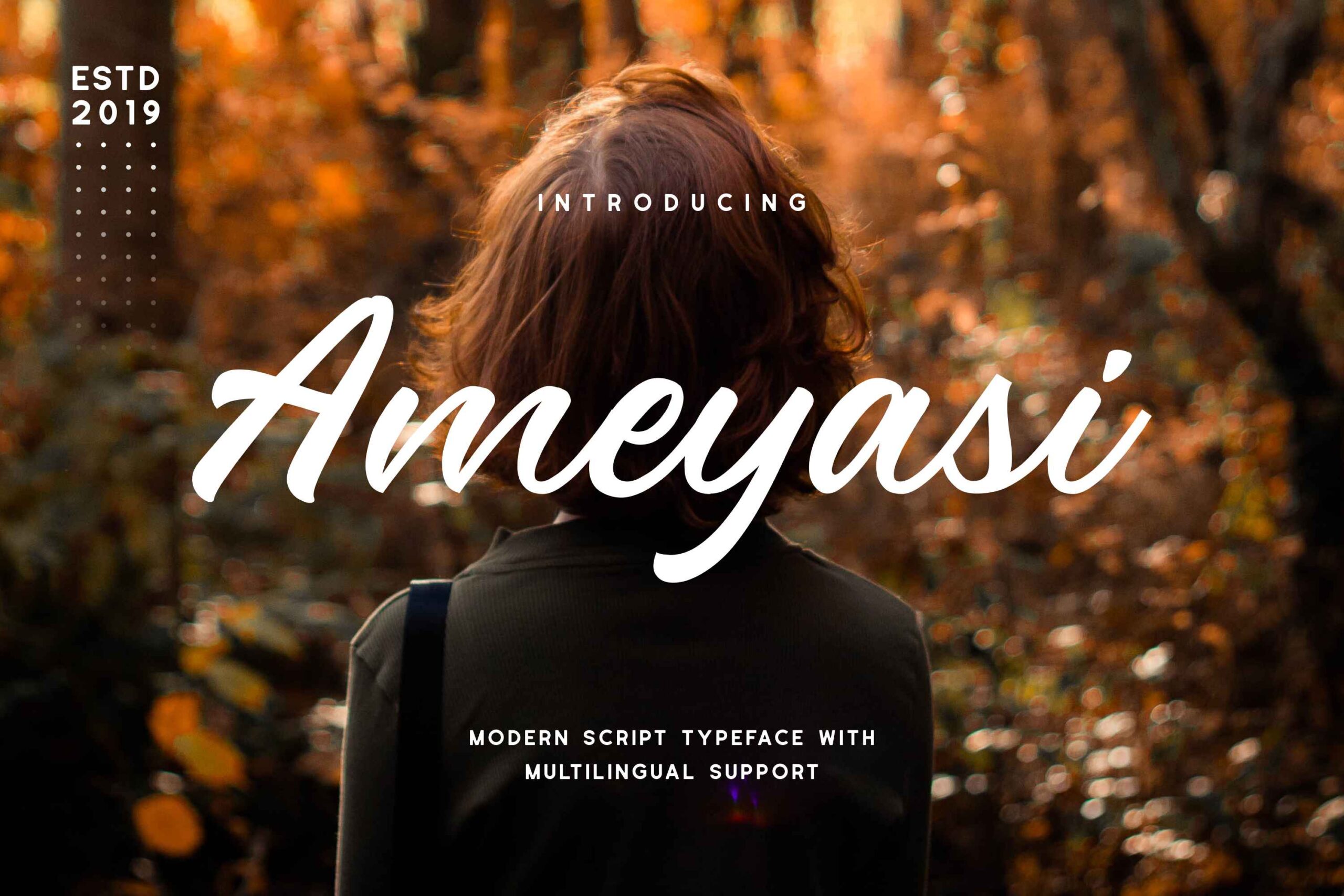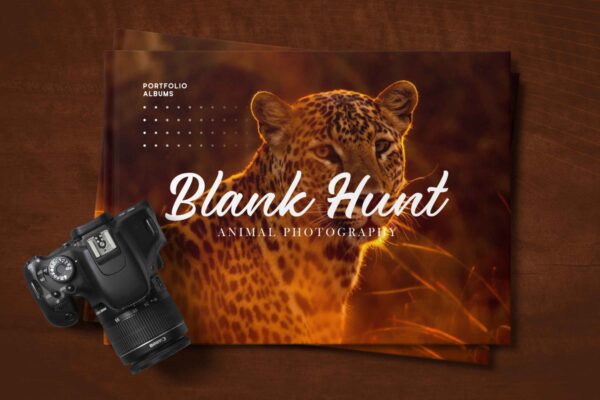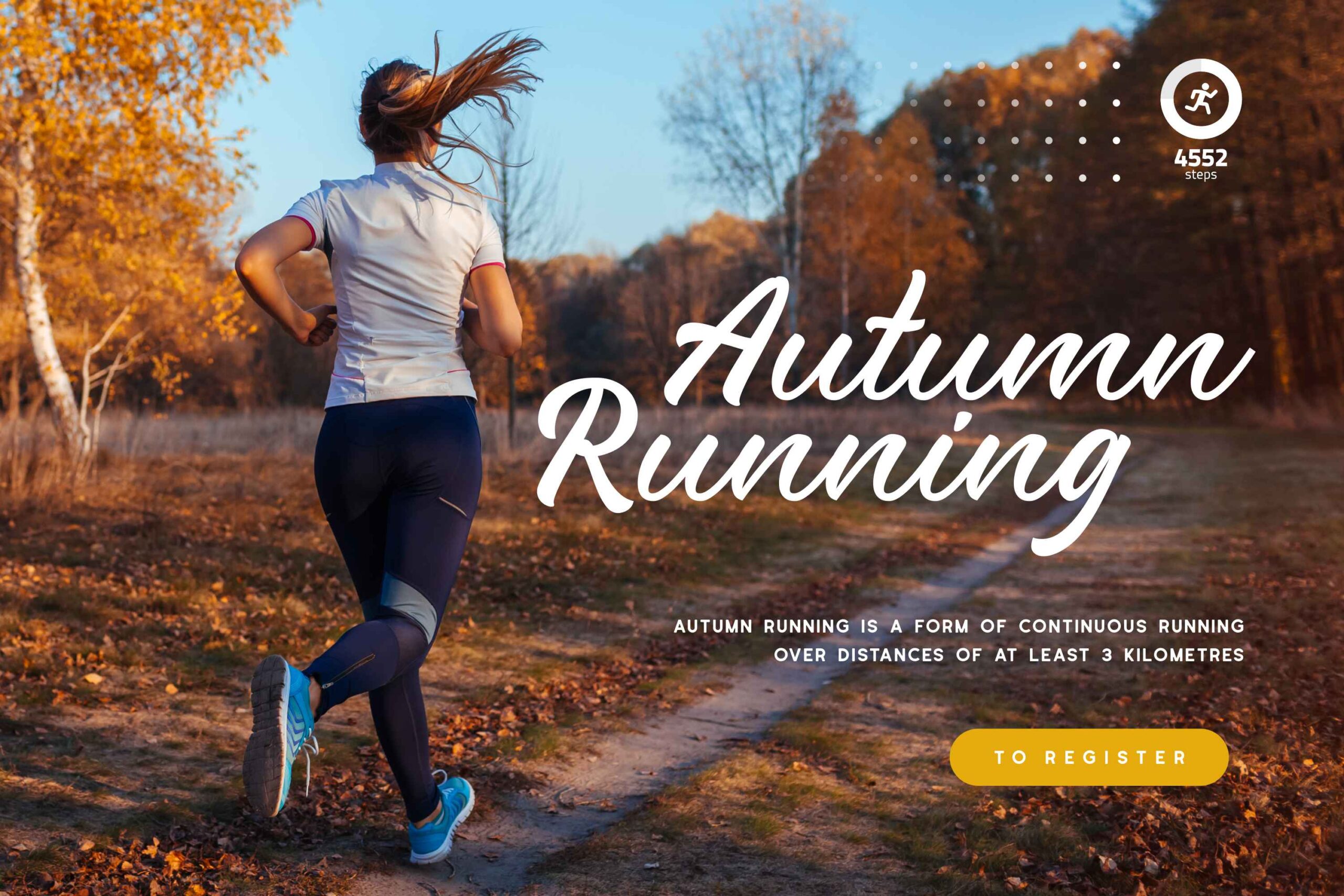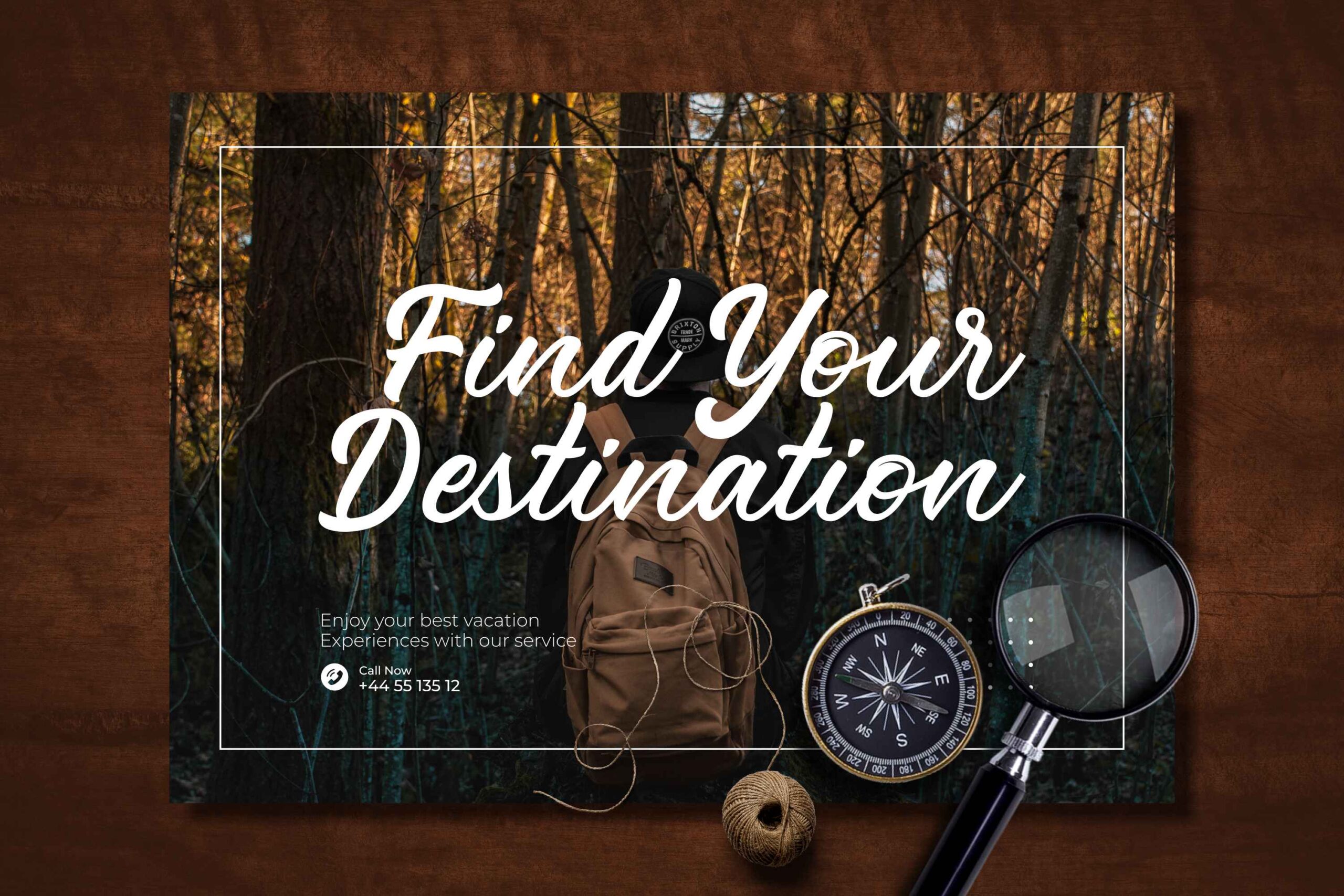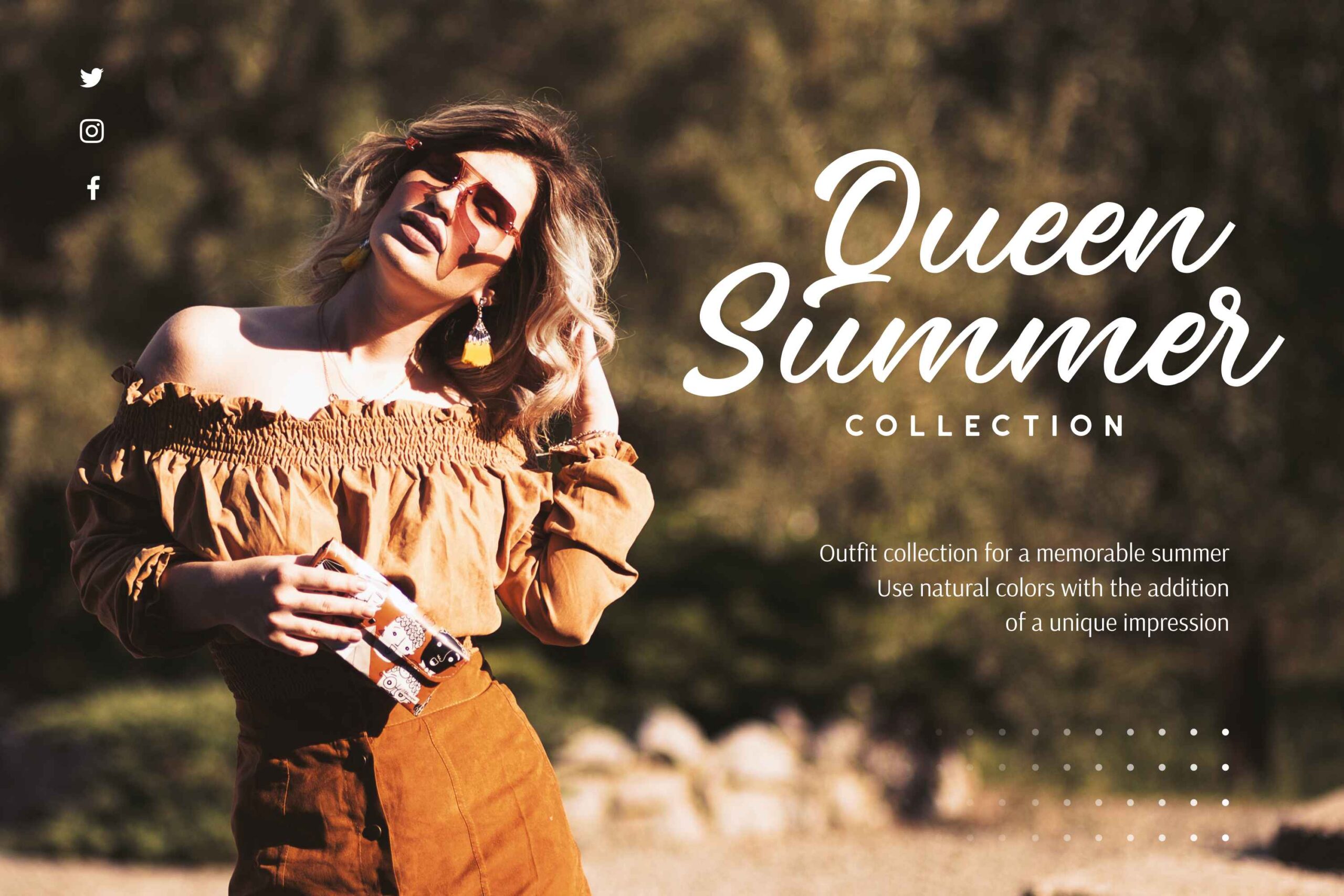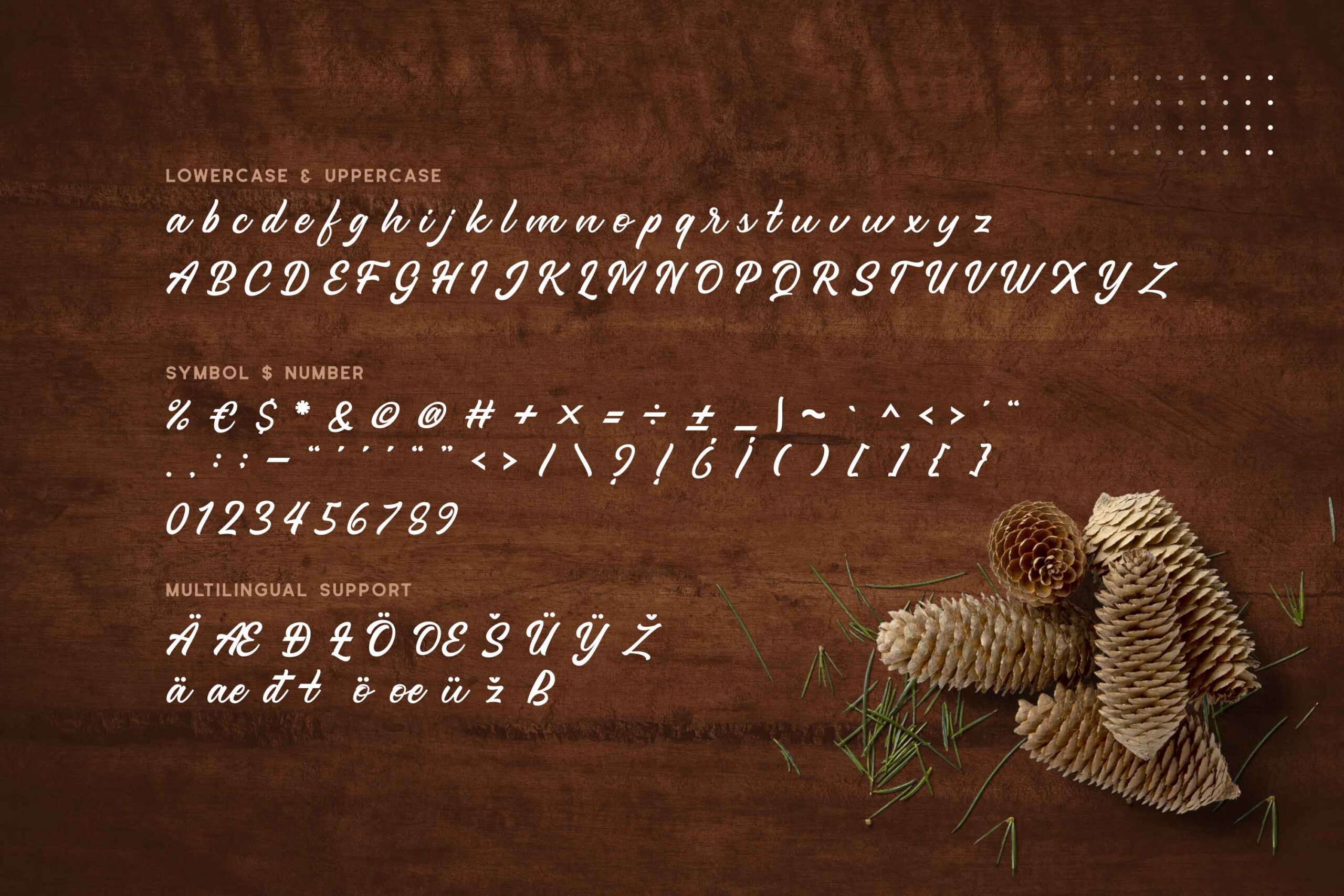
Ameyasi is a modern script typeface that blends elegance and energy in every stroke. Its fluid, handwritten style evokes a sense of movement and personality, making it a perfect choice for lifestyle branding, photography portfolios, fashion campaigns, and adventure-themed visuals. With its stylish curves and flowing lines, Ameyasi captures a contemporary handwritten aesthetic that feels both natural and refined.
Equipped with multilingual support, full uppercase and lowercase sets, symbols, and numbers, Ameyasi offers great versatility for both print and digital projects. Whether you’re designing for seasonal campaigns, social media graphics, product packaging, or promotional posters, this font provides a personal and expressive touch that resonates with creative storytelling.
Ameyasi